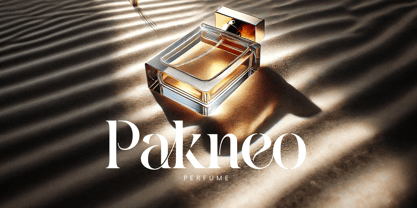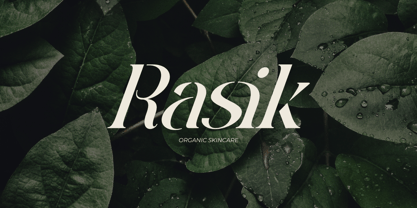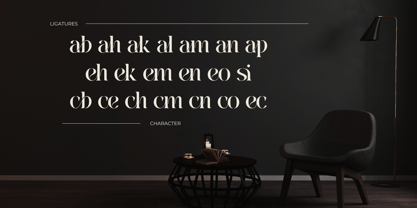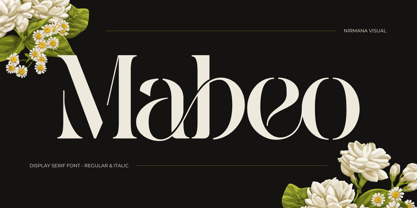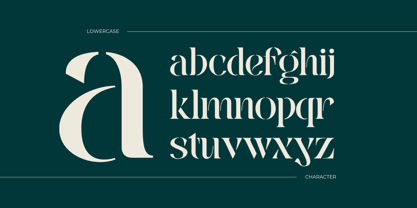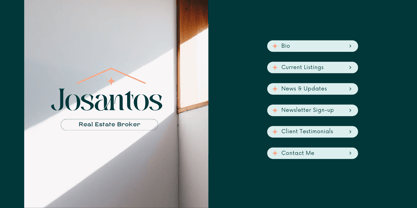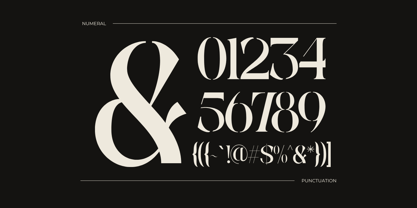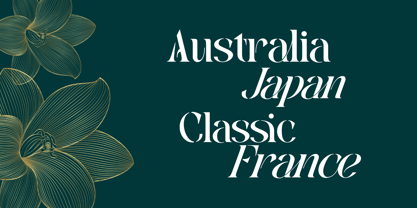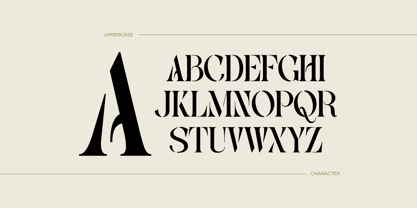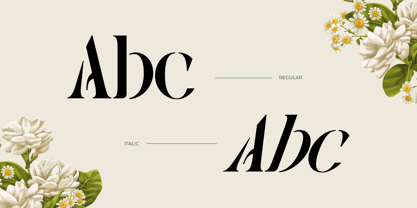
Mabeo Vintage
par Nirmana Visual
La famille de polices Mabeo Vintage a été conçue par Sigit Dwipa et publiée par Nirmana Visual. Mabeo Vintage contient 2 styles et options de package familial.
À propos de la famille
Mabeo is a vintage display serif font that brings timeless elegance to your designs. Featuring a classic style with a modern twist, Mabeo includes a wide range of stylish lowercase ligatures, making it perfect for branding, packaging, editorials, and more. Its refined curves and nostalgic charm create a unique, sophisticated look that stands out while remaining highly readable. Ideal for projects that need a touch of retro flair with a contemporary feel.